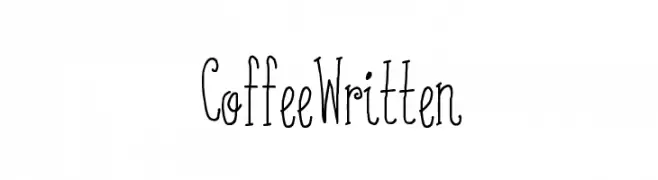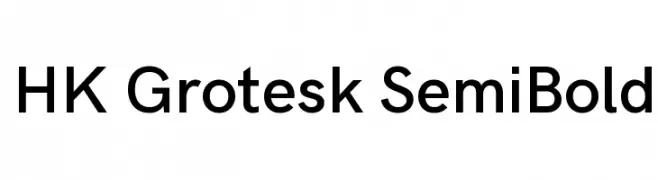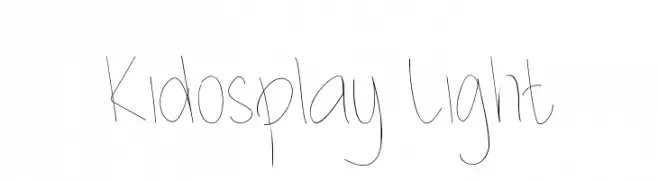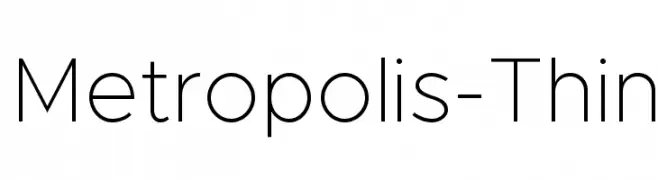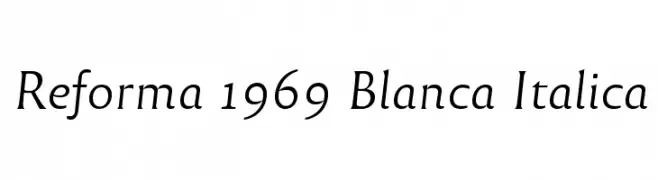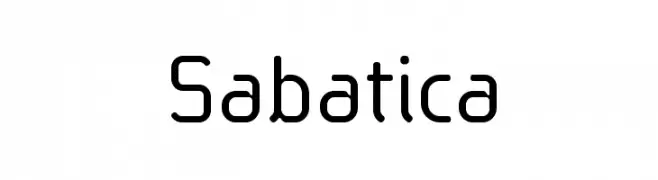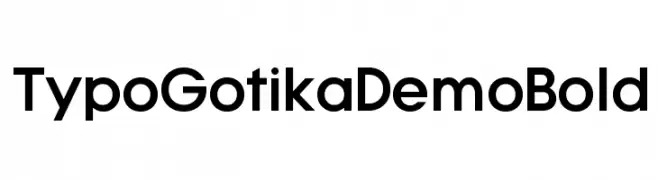
A bold, modern sans-serif font with clean, geometric lines.
A modern, geometric font with rounded edges and uniform width.
Elegant italic font with moderate contrast and classic style.
A modern, thin, and geometric typeface with clean lines and excellent readability.
A bold, modern sans-serif typeface with clean lines and strong readability.
A modern, semi-bold sans-serif font with clean lines and balanced proportions.
A playful, hand-drawn font with thin, consistent strokes and a whimsical style.
A sleek, modern font with clean lines and uniform stroke width.
A modern, semi-bold italic sans-serif font with clean, geometric lines.
A whimsical, handwritten font with tall, narrow characters and a playful tone.